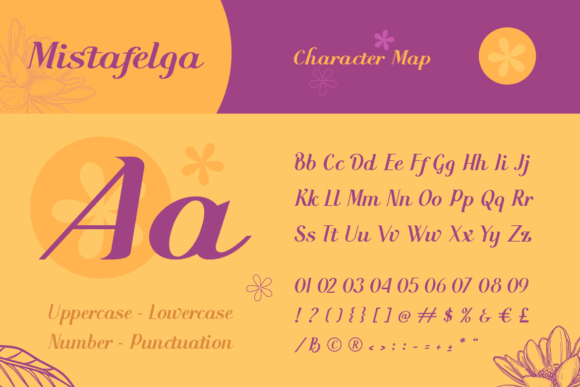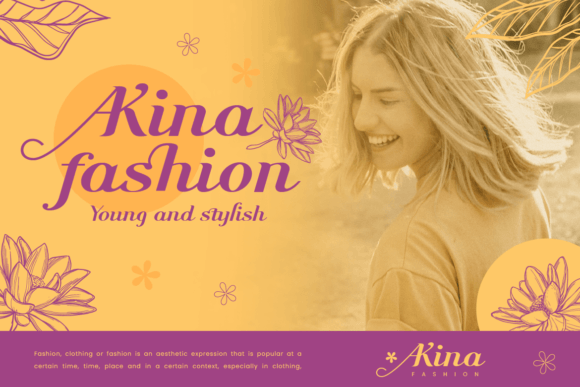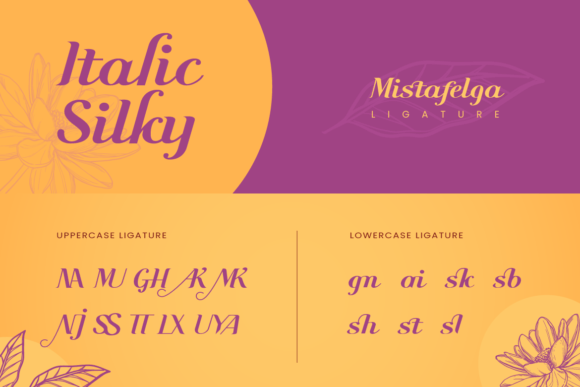
Introduction to Mistafelga Font
Mistafelga is an elegant, silky handwritten script font designed for editorial use and inspired by calligraphy of the middle century.
This font is good for logo design, social media, or anything that needs a stylish touch .
Key Features of Mistafelga Font
Why Choose Mistafelga Font?
Mistafelga Font offers exceptional quality and versatility, making it a valuable addition to your design toolkit. Whether you’re creating for personal projects or commercial use, Mistafelga Font delivers professional results.